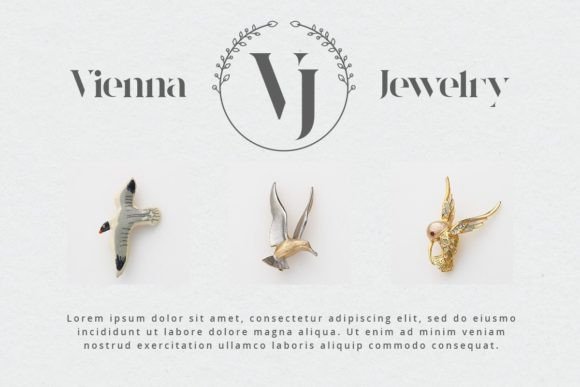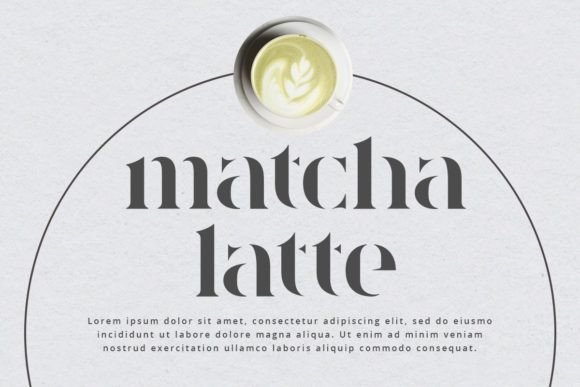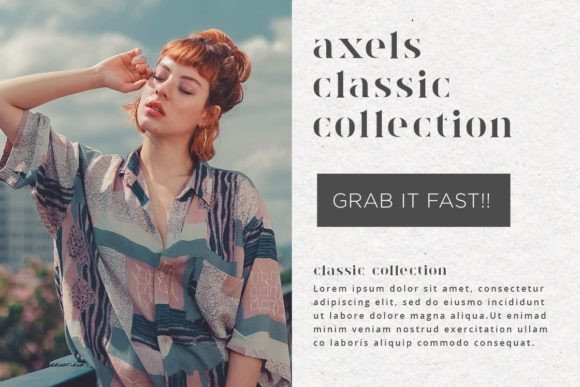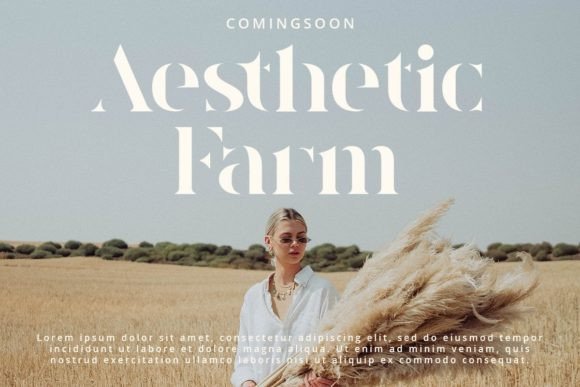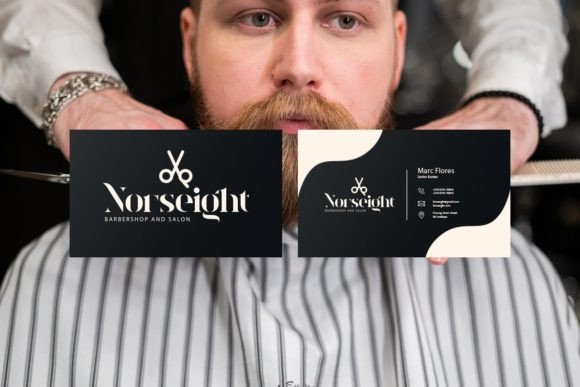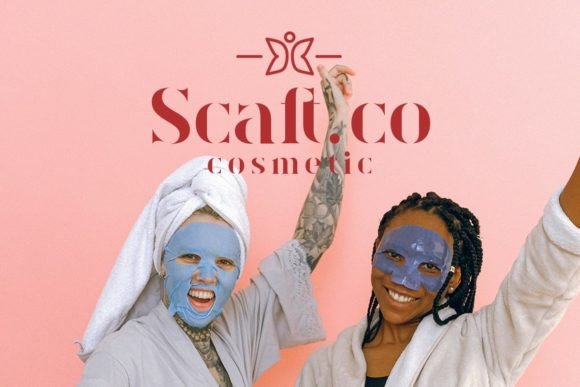
Introduction to Goodies Font
Say hi to Goodies, a modern stencil serif font with a unique style and luxurious look.
This typeface is perfect for an elegant & luxury logo, classy editorial design, womenโs magazine, fashion brand, cosmetic brand, fashion promotion, modern advertising design, invitation card, art quote, home decoration, book/cover titles, special events, and much more .
Goodies Font offers exceptional quality and versatility, making it a valuable addition to your design toolkit. Whether you’re creating for personal projects or commercial use, Goodies Font delivers professional results.